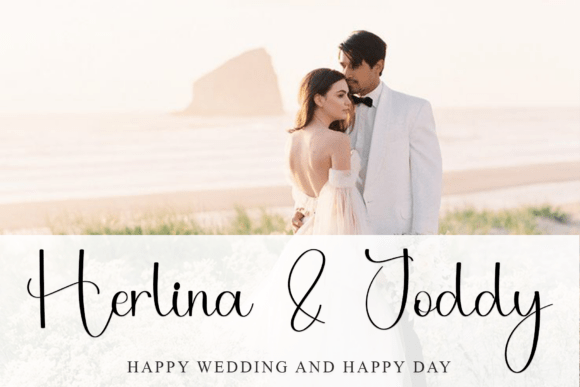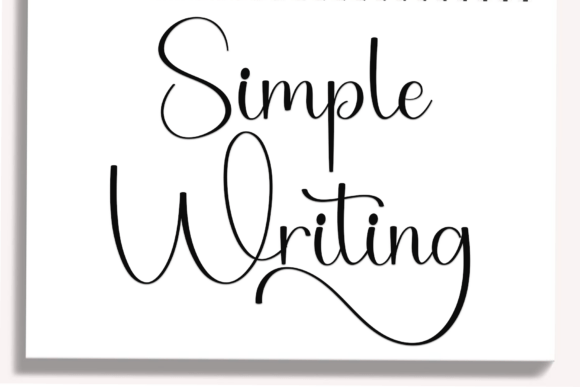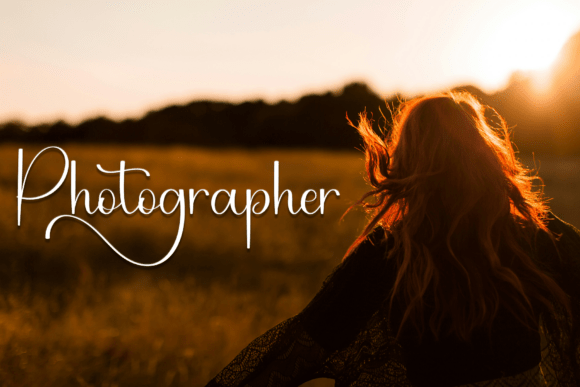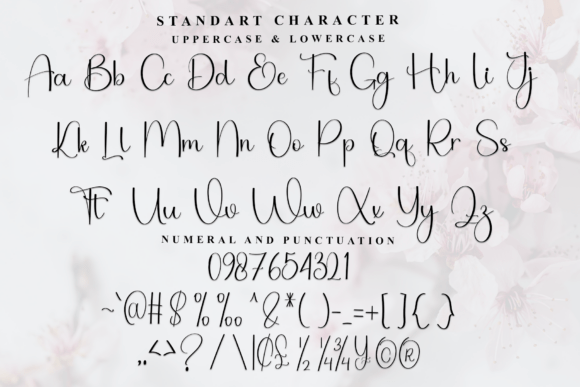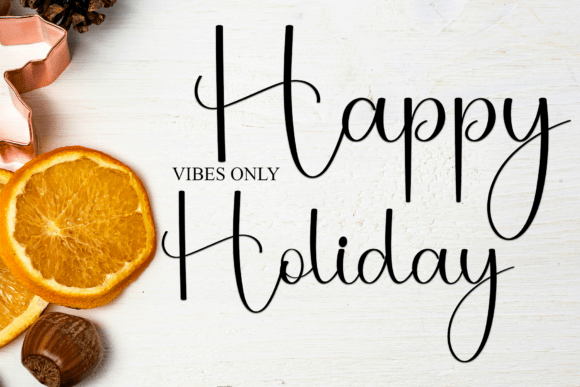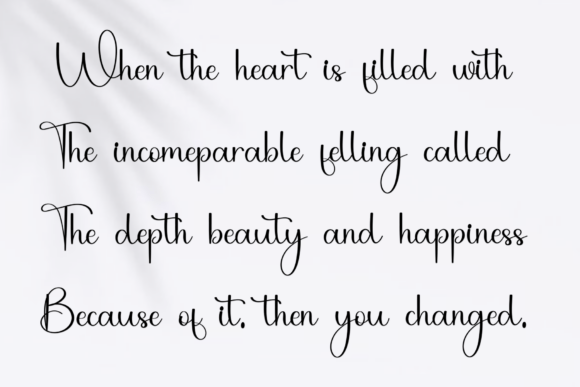
Introduction to Hangbye Font
Have you ever stumbled upon a font that sparks inspiration and sets your creative juices flowing? For designers and crafty enthusiasts, discovering the perfect font can be a game-changer. Recently, I found myself lost in a sea of beautiful typography, searching for that elusive font that would elevate my designs to the next level. That’s when I came across the Hangbye Font – a stunning, one-of-a-kind font that has become my go-to resource for creative projects.
What sets Hangbye Font apart is its unique, soft touch that gives it a special character. Whether you’re working on a graphic design project, crafting a handmade card, or creating digital art, this versatile font is sure to add a touch of elegance and sophistication to your work.
Key Features of Hangbye Font
- Unique, hand-drawn style with a transparent background, ideal for digital designs.
- Includes a comprehensive character set with uppercase and lowercase letters, numbers, and punctuation.
- Perfect for designers and artists looking for a distinctive, creative font for their projects.
Honest Review: Hangbye Font
As a designer, I’m always on the lookout for high-quality design resources to elevate my creative projects. The Hangbye Font caught my attention with its unique and modern aesthetic. I downloaded it for free and was pleased to find that it comes with a transparent background, making it easy to use in a variety of design contexts.
What works well about the Hangbye Font is its versatility. It can be used for both digital and print projects, and its clean lines and minimalist design make it a great choice for any creative project that requires a touch of sophistication. I also appreciate that it’s a free download, which is a huge bonus for designers on a budget.
Here are some of the features I like about the Hangbye Font:
- ✨ Unique and modern design aesthetic
- ✨ Versatile and suitable for both digital and print projects
- ✨ Clean lines and minimalist design
One limitation of the Hangbye Font is that it may not be suitable for projects that require a bold or playful font. The design is quite minimalist and may not stand out in crowded or busy design contexts.
Overall, I’m impressed with the Hangbye Font and would recommend it to designers who are looking for a high-quality, versatile font for their creative projects.
Getting the Most Out of Hangbye Font
To get the most out of Hangbye Font, use it in combination with other design resources, such as images and graphics. Experiment with different font sizes, colors, and styles to create a unique and creative design.
Hangbye Font is perfect for various design projects, including logos, business cards, and social media graphics. Its high-quality design and transparent background make it ideal for creating professional and eye-catching designs.